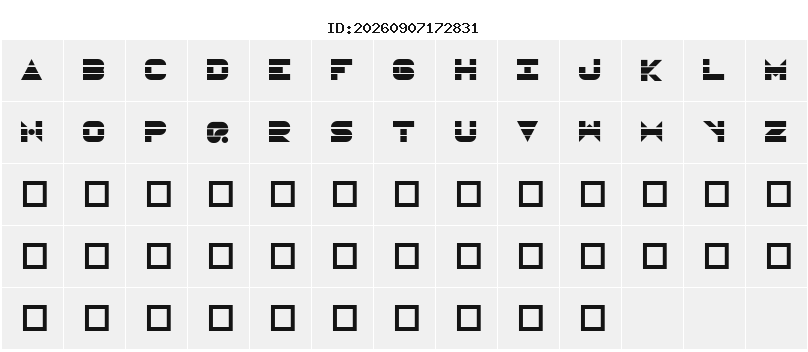
UltraSonic Preview
• Font Name: UltraSonic
• Full Font Name: UltraSonic
• Character Count: 28
About UltraSonic.ttf
UltraSonic.ttf is a modern, elegant sans-serif font designed for ultimate readability and visual harmony. Perfect for branding, headlines, web design, and print materials.